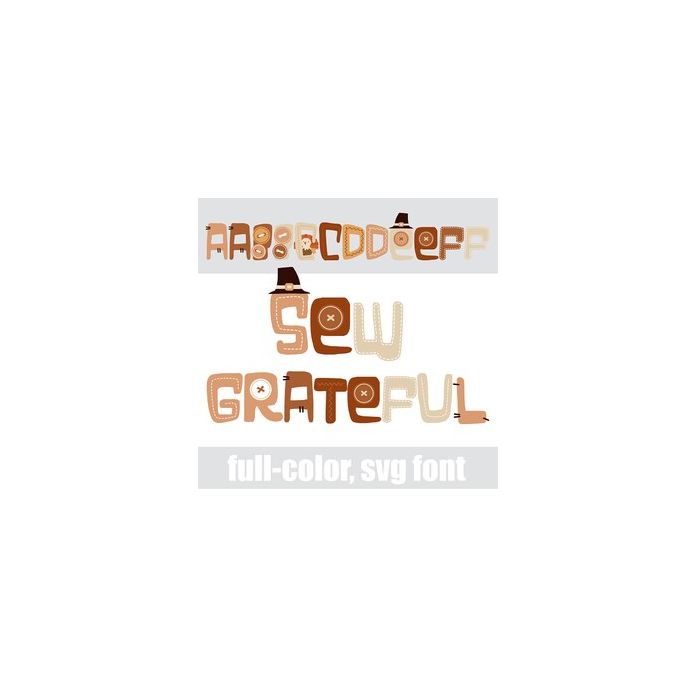
This full-color font features fun lettering in autumn color palette with stitches, buttons, turkeys, and pilgrim hats. There is an alt case w/ additional colors you can access through your system or Silhouette's glyph map.